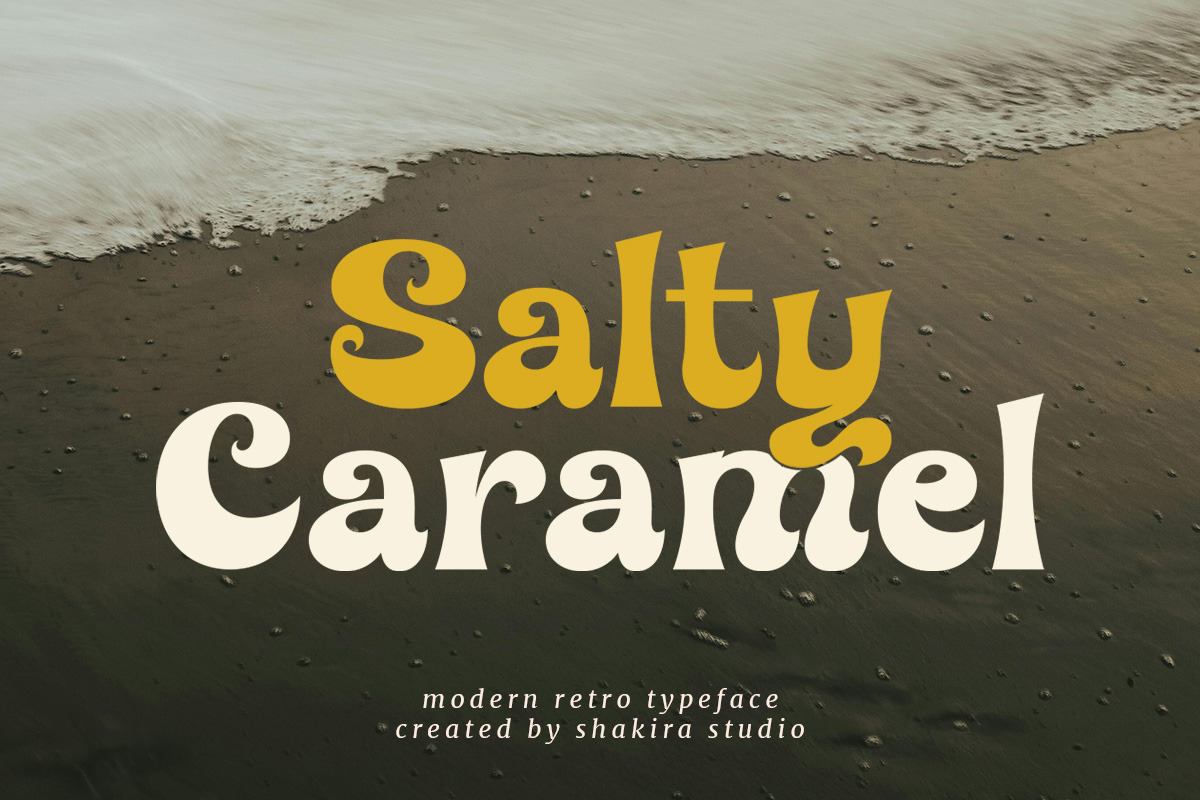
Salty Caramel - Modern Retro Font Free Download is a fun, bold, and vibrant typeface that blends retro charm with modern design. Featuring thick, rounded letterforms and playful curves, Salty Caramel is perfect for logos, branding, posters, social media graphics, and any project that calls for a nostalgic yet fresh, eye-catching look.
With its unique mix of vintage flair and contemporary style, this font is ideal for projects aimed at a youthful, creative audience, or those inspired by the vibrant retro aesthetics of the past.